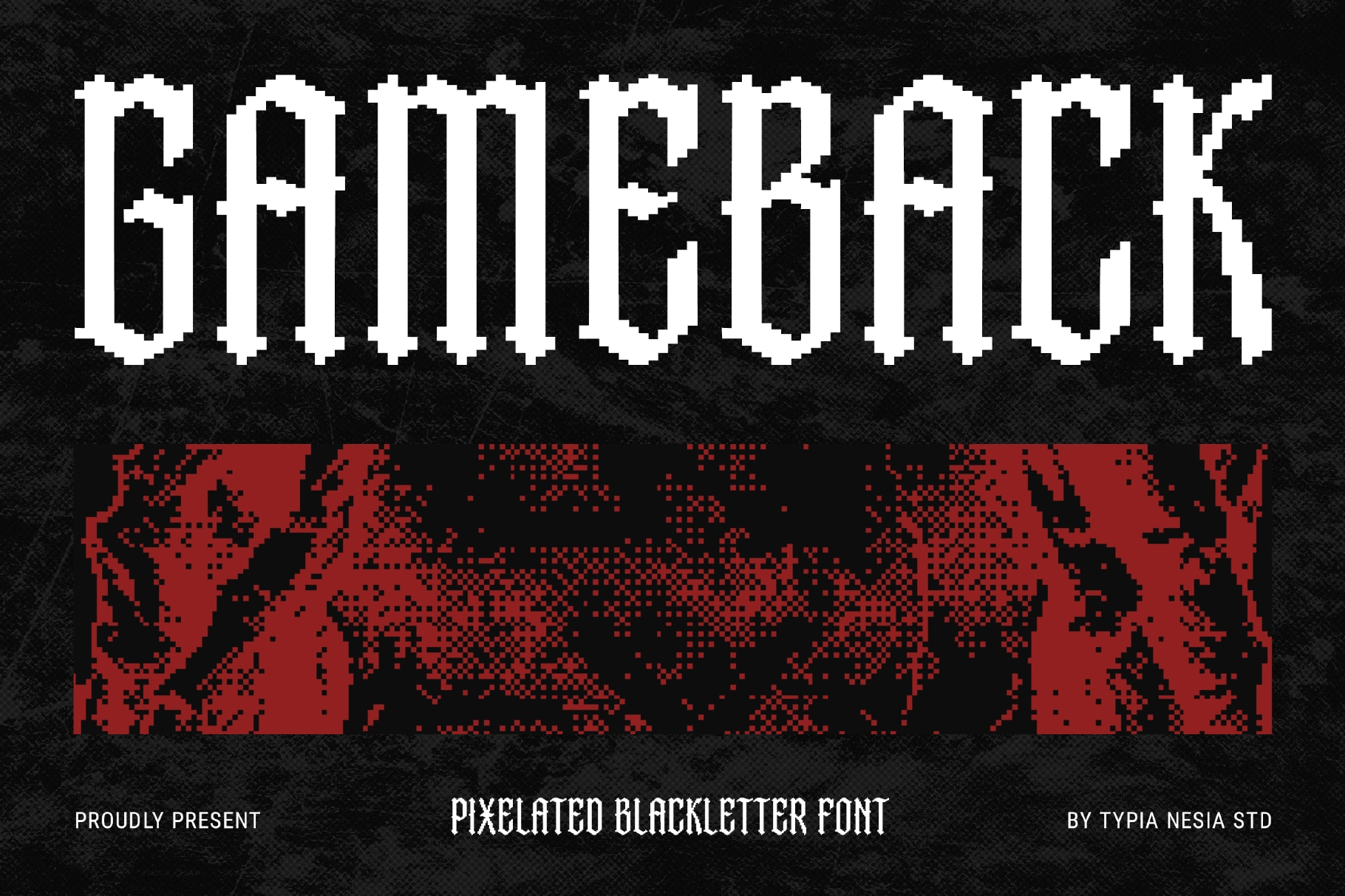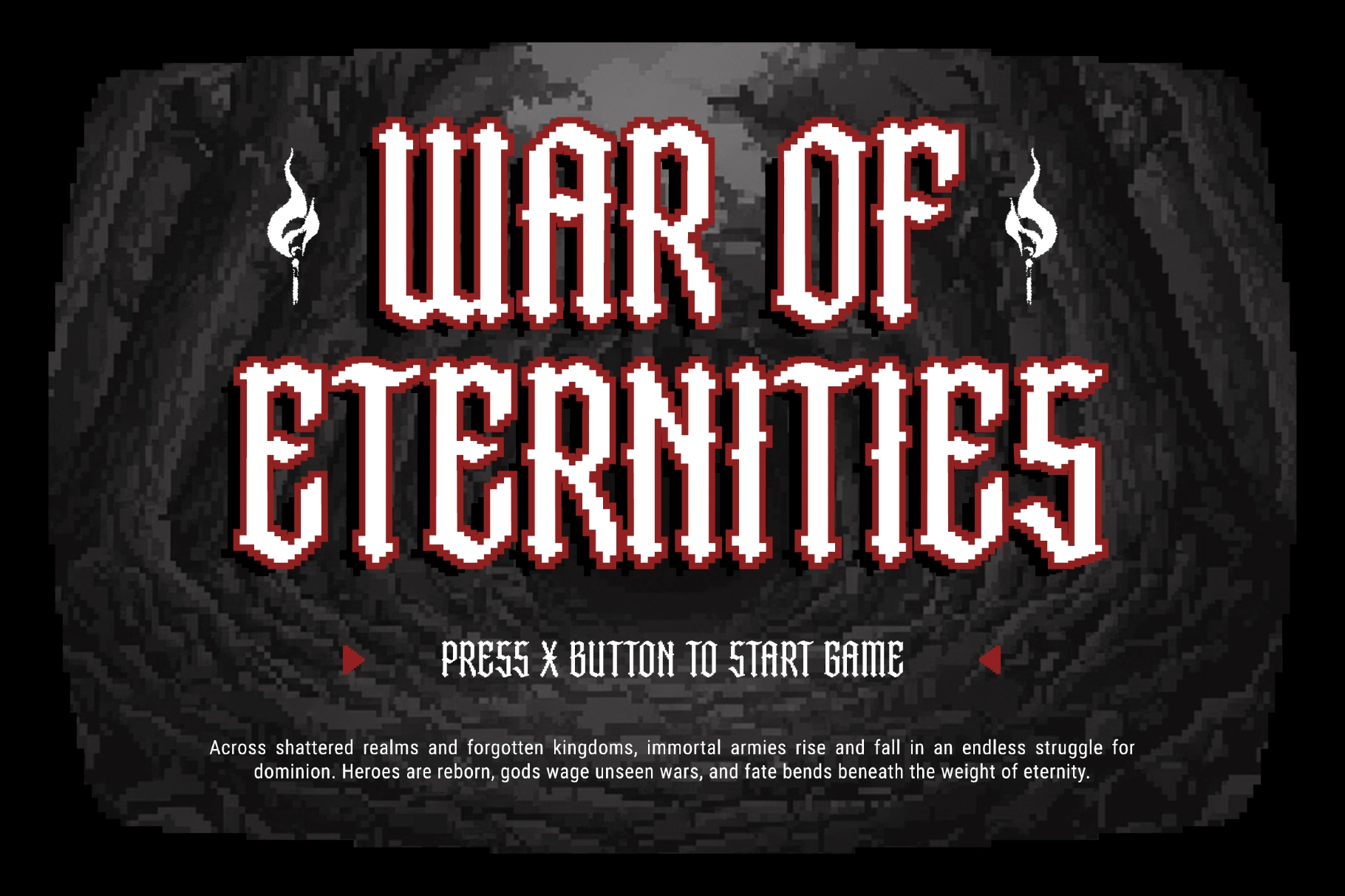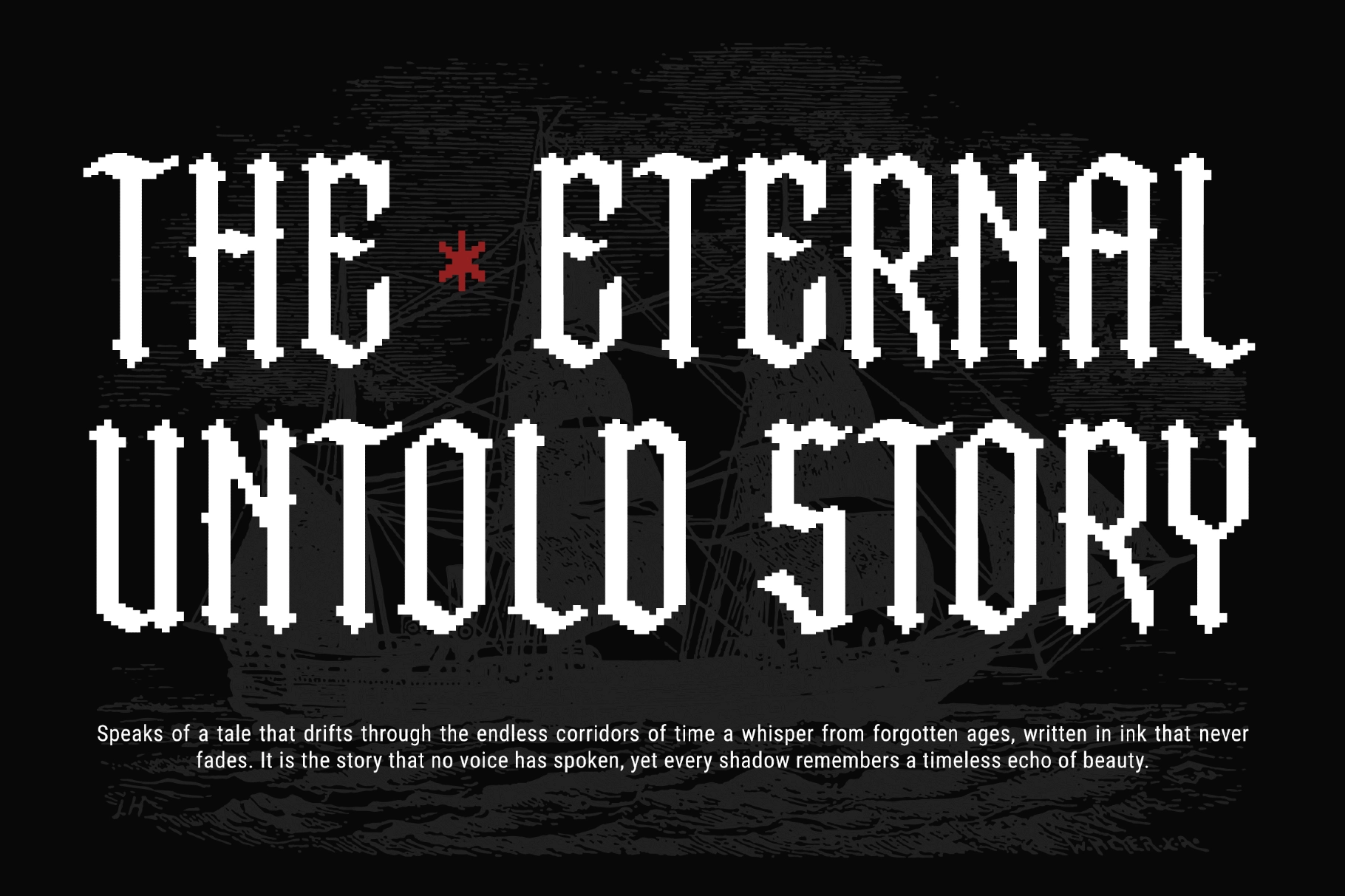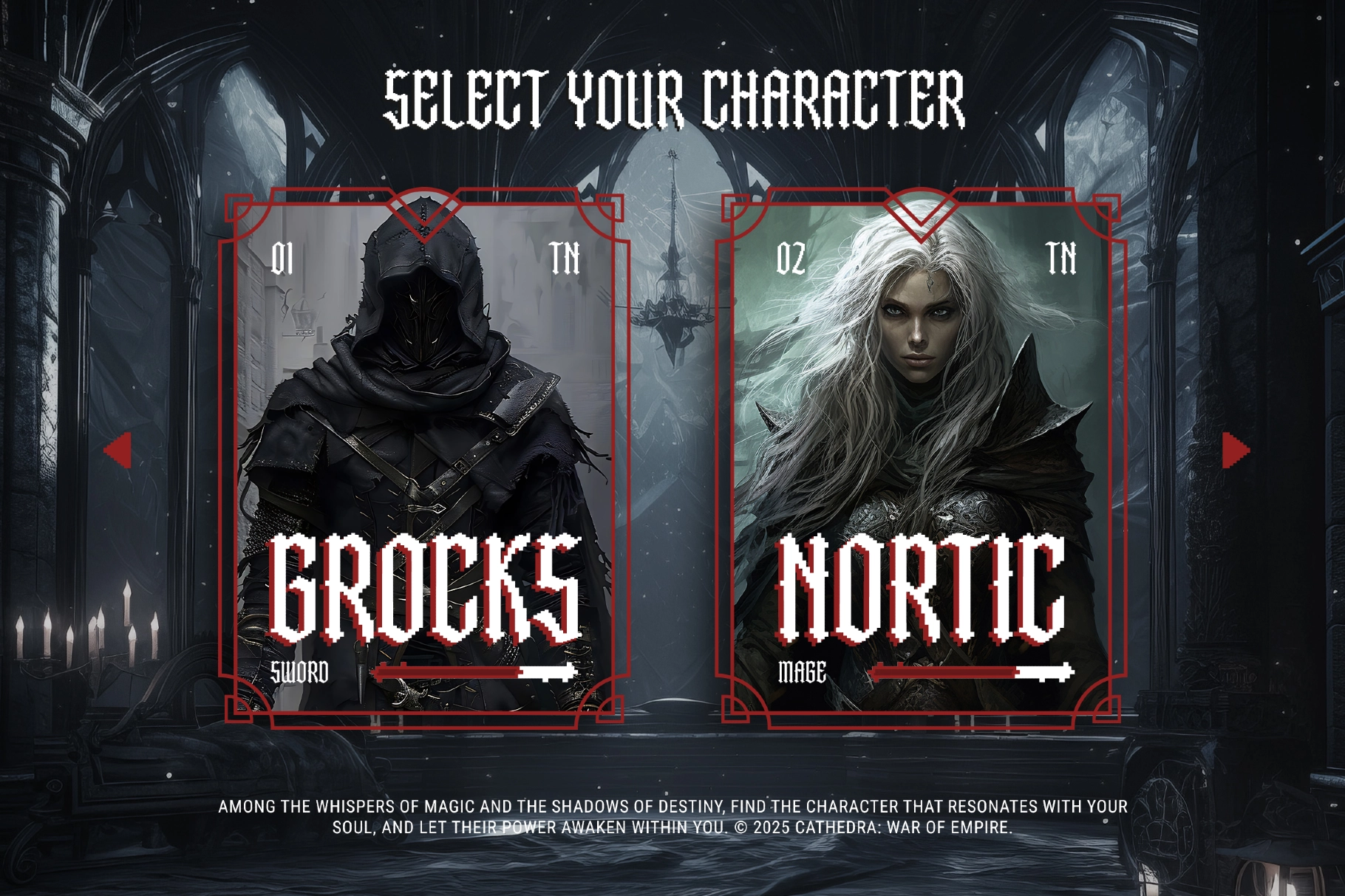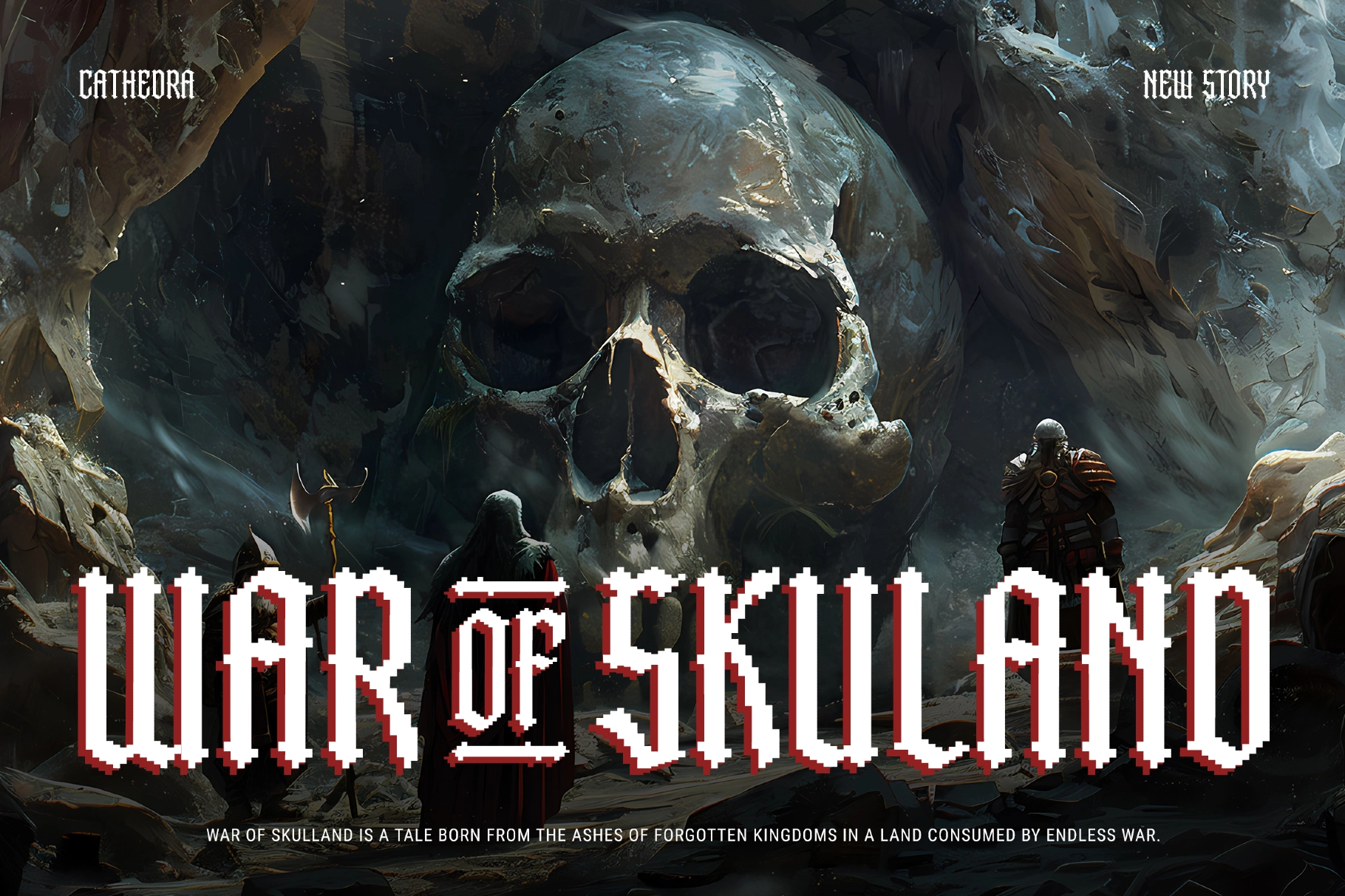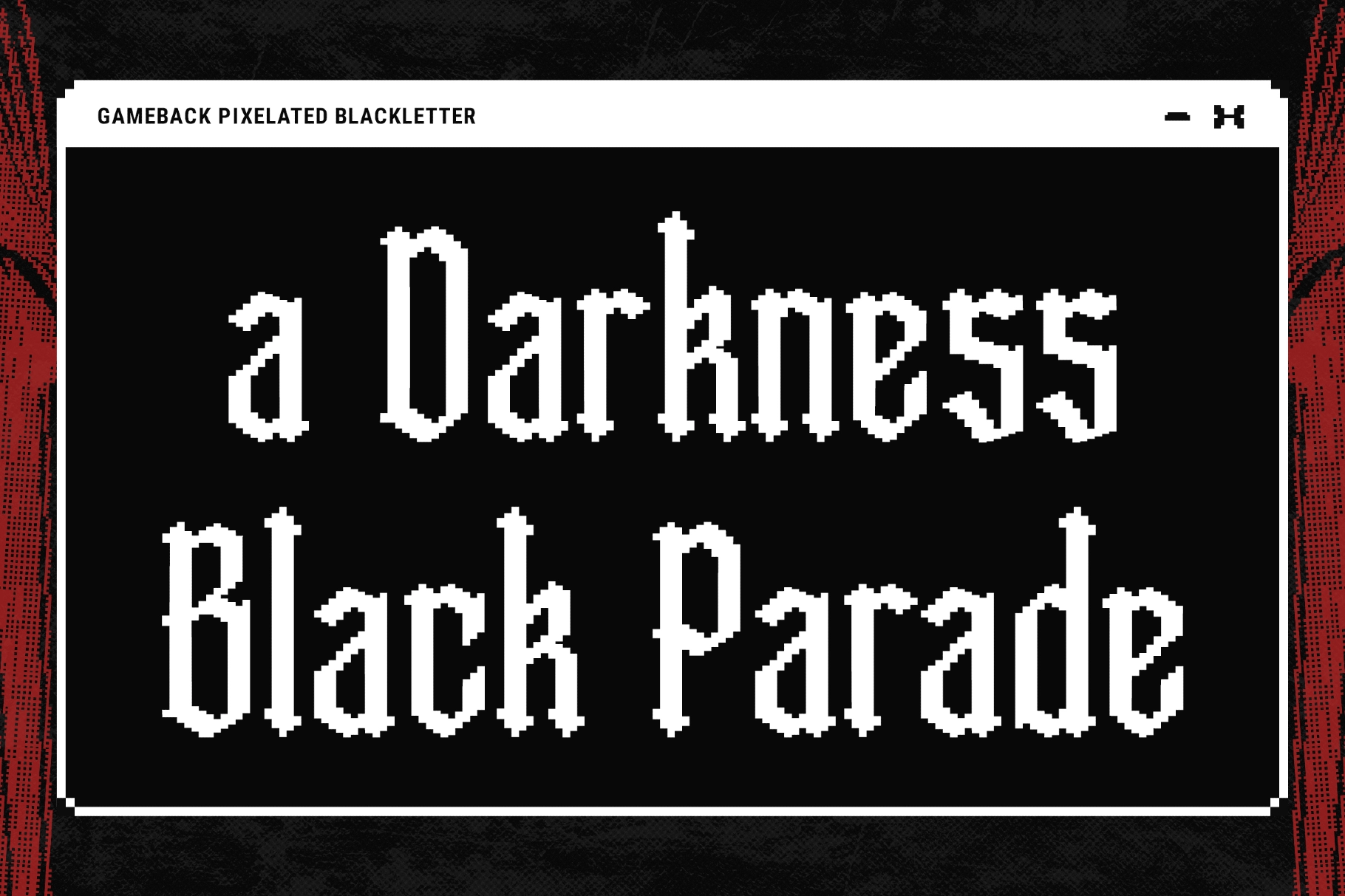
Gameback - Retro Gothic Pixel Typeface
Gameback – Retro Gothic Pixel Typeface is a bold pixelated blackletter display font that merges Gothic elegance with the raw nostalgia of 80s arcade culture. Featuring a distinctive 8-bit texture and a tall, condensed structure, this typeface delivers a powerful retro-digital presence that instantly commands attention.
Designed for high-impact visuals, Gameback is perfect for game titles, esports branding, music artwork, logo design, digital media, posters, web interfaces, and standout print projects. Its unique fusion of medieval blackletter style and pixel aesthetics creates a dramatic, futuristic-meets-vintage look that feels both classic and cutting-edge.
Whether you're building a retro game identity or crafting bold digital branding, Gameback – Retro Gothic Pixel Typeface brings attitude, nostalgia, and unmistakable character to every design.
- Pixelated blackletter display style
- Retro 8-bit arcade texture
- Tall and condensed letterforms
- Uppercase & lowercase characters
- Numerals and punctuation included
- Ideal for game titles and esports branding
- Perfect for logos, posters, music, and digital design